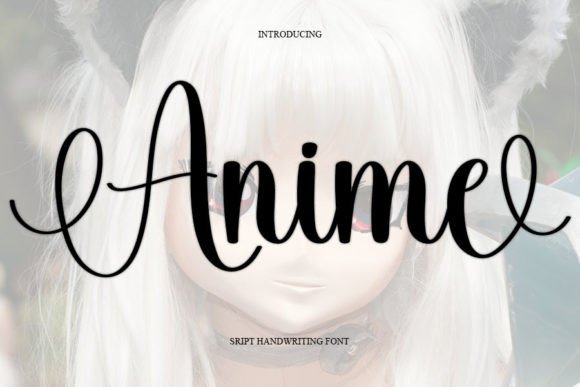
The Anime Font: A Simple yet Versatile Handwritten Delight
I’ll never forget the time I was working on a project for a client who wanted a simple, yet elegant font to convey a sense of friendliness and approachability. I scoured the internet for hours, trying out font after font, but nothing seemed quite right. That was until I stumbled upon the Anime font. This beautiful, handwritten font has a wide spectrum of applications, ranging from greeting cards to headlines, and it’s guaranteed to add a simple and natural feel to your next project!
I’ve had the pleasure of working with the Anime font for a while now, and here are my honest thoughts:
- ✨ Easy to read: The Anime font is incredibly legible, even at smaller sizes.
- ✅ Versatile: This font is perfect for a wide range of projects, from digital designs to print materials.
- 💕 Charming: The Anime font has a certain whimsy to it, making it perfect for projects that require a touch of personality.
Of course, no font is perfect, and here are a few quirks to keep in mind:
- 🤔 Limited character set: While the Anime font has a wide range of characters, it may not have every special character or glyph you need.
- ⚠️ Not suitable for body text: While the font is easy to read, it’s not designed for long blocks of text. Stick to headlines, titles, and short paragraphs for best results.
The Story Behind the Anime Font
The Anime font was designed with simplicity and elegance in mind. While the exact designer is unknown, it’s clear that they were inspired by traditional Japanese art and culture. The result is a beautiful, handwritten font that’s perfect for a wide range of projects.
| Font Name | Anime Font |
| Author | Harlek studio |
| What is the Anime font? | The Anime font is a simple, handwritten font perfect for a wide range of projects. |
| What are some common uses for the Anime font? | The Anime font is perfect for headlines, titles, greeting cards, and more. |